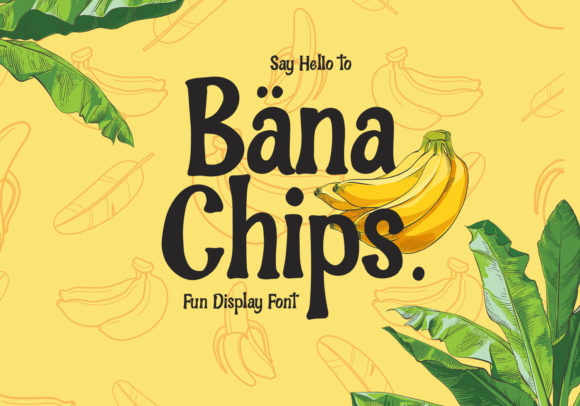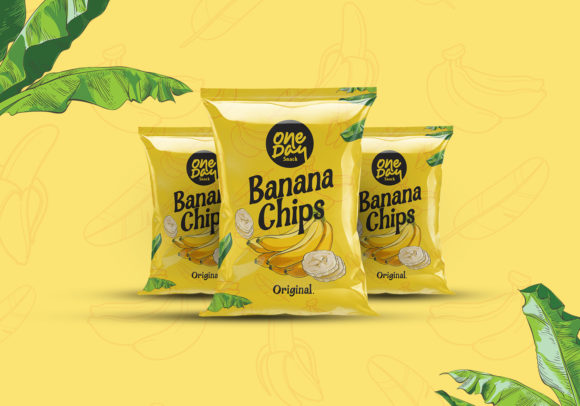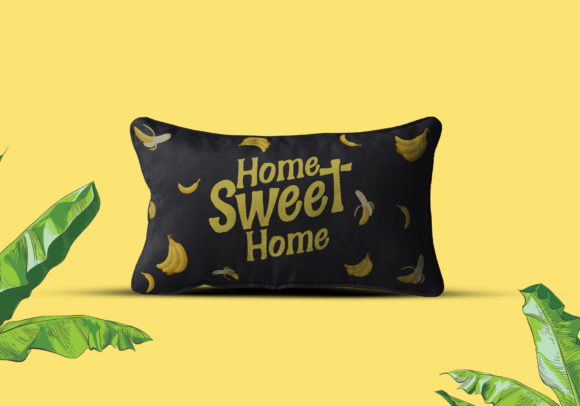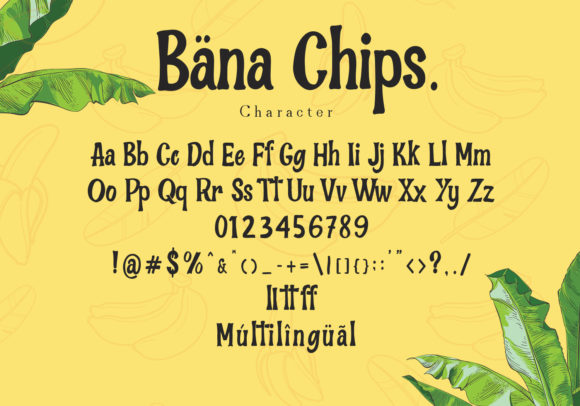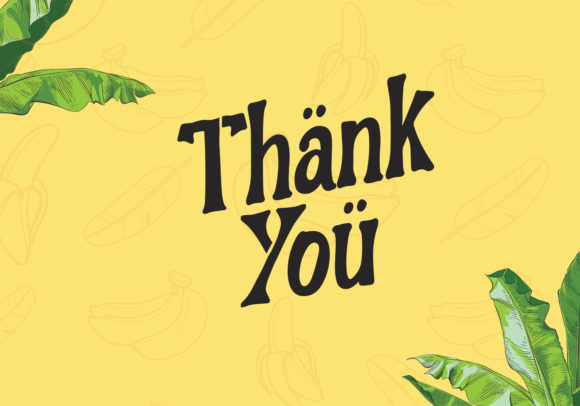
Bana Chips Font
About Bana Chips Font
Bana Chips is a magical handwritten font carefully created with a touch of elegance. This is a beautiful combination of timeless elegance and authentic calligraphy. It features an incredibly classic style, while still keeping a friendly feel. Bana Chips is the perfect font for making original and outstanding designs.